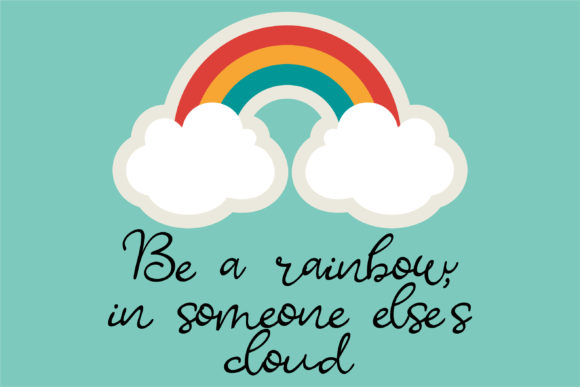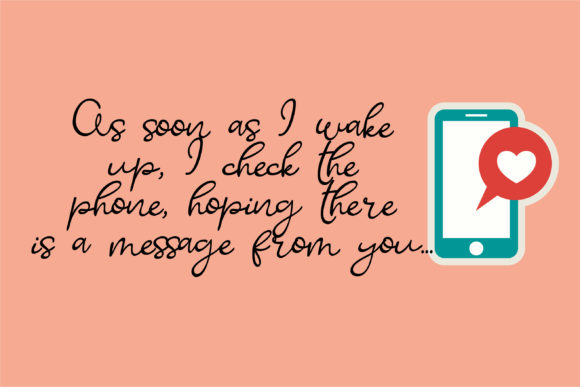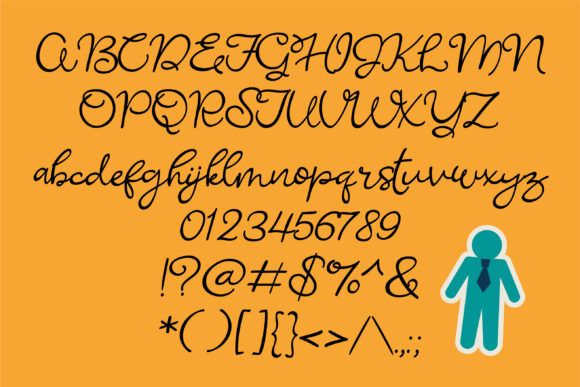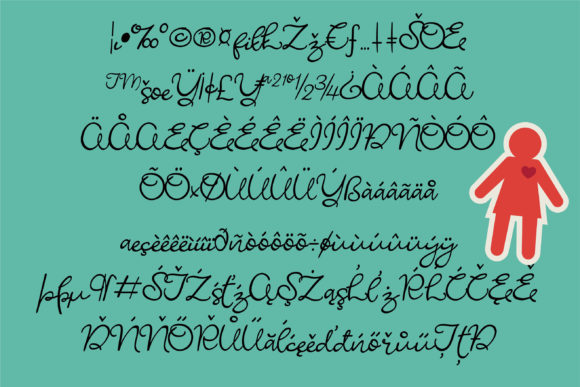
Gathering Font: Adding a Personal Touch to Your Designs
In the world of typography, fonts play a crucial role in conveying the tone and personality of a project. For designers and crafters looking to add a home-made touch to their work, the Gathering Font is an excellent choice. This hand-crafted script has a casual feel to it, making it perfect for projects that require a personal and whimsical touch.
The Charm of Hand-Crafted Typography
The Gathering Font is a beautiful example of hand-crafted typography. Each letter is carefully crafted to give the font a unique and organic feel. The casual nature of the font makes it ideal for projects that require a friendly and approachable tone. Whether you’re working on a DIY project, a handmade craft, or a design project that requires a personal touch, the Gathering Font is sure to impress.
Characteristics of the Gathering Font
The Gathering Font has several characteristics that make it stand out from other fonts. Some of its notable features include:
- Hand-crafted feel: The font has a unique, hand-crafted feel that gives it a personal and organic touch.
- Casual tone: The font has a casual tone that makes it perfect for projects that require a friendly and approachable feel.
- Whimsical nature: The font has a whimsical nature that makes it ideal for projects that require a creative and playful touch.
Uses of the Gathering Font
The Gathering Font is a versatile font that can be used in a variety of projects. Some of the most popular uses of the font include:
- DIY projects: The font is perfect for DIY projects, such as handmade crafts, woodworking, and other home improvement projects.
- Handmade crafts: The font is ideal for handmade crafts, such as knitting, sewing, and other needlework projects.
- Design projects: The font can be used in design projects, such as logo design, branding, and advertising.
- Stationery and invitations: The font is perfect for creating stationery, invitations, and other paper goods.
Tips for Using the Gathering Font
Here are some tips for using the Gathering Font in your projects:
- Pair it with other fonts: The Gathering Font can be paired with other fonts to create a unique and interesting contrast.
- Use it in headlines and titles: The font is perfect for headlines and titles, where its casual and whimsical nature can shine.
- Experiment with different colors: The font can be used in a variety of colors to create a unique and eye-catching effect.
The Gathering Font is a beautiful and versatile font that can add a personal touch to any project. Its hand-crafted feel, casual tone, and whimsical nature make it perfect for DIY projects, handmade crafts, design projects, and stationery. With its unique characteristics and uses, the Gathering Font is sure to become a favorite among designers and crafters.
With its unique and charming nature, the Gathering Font is sure to add a personal touch to any project. Whether you’re a designer, crafter, or DIY enthusiast, this font is a great choice for anyone looking to add a home-made touch to their work.